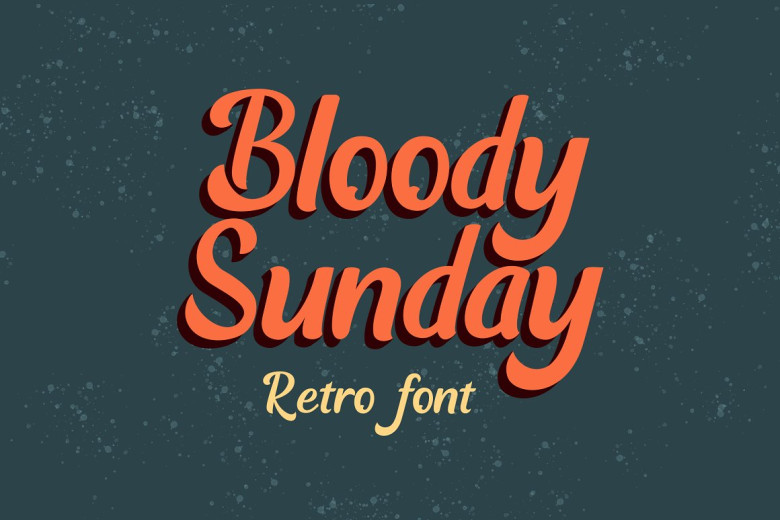
Bloody Sunday Font
Bloody Sunday Font is an elegant signature script that it feels beautiful, modern as well as it’s fashion flair. This font is ideally suited for a wide variety of projects, such as signature, stationery, logo, wedding, typography quotes, magazine or book covers, website headers, clothing, branding and product packaging.
Bloody Sunday Retro Script Font